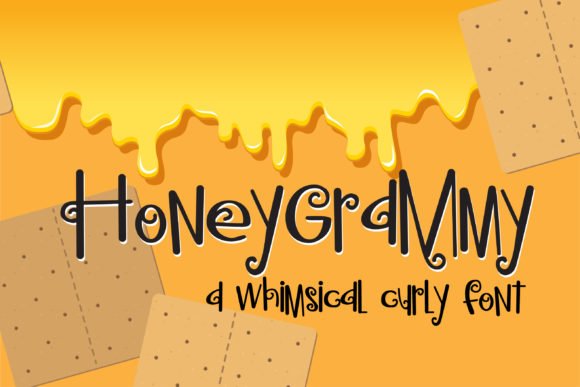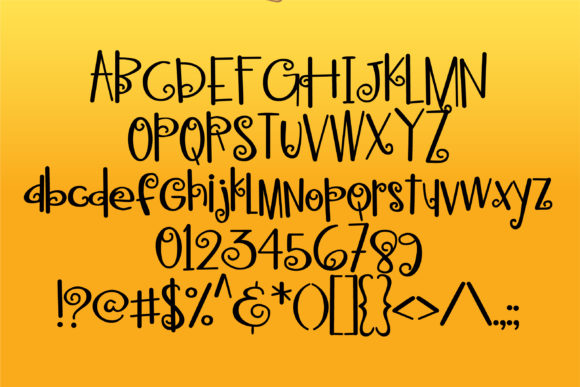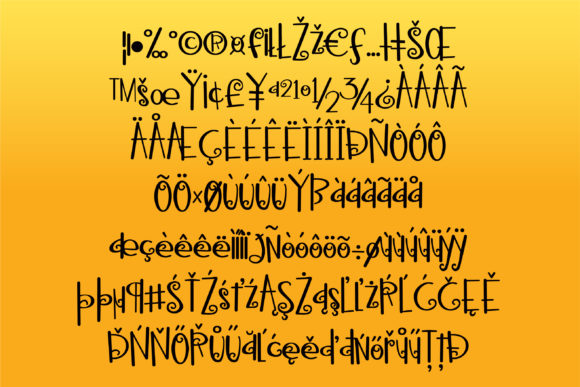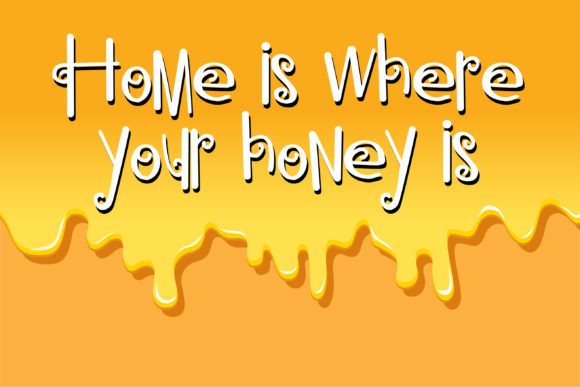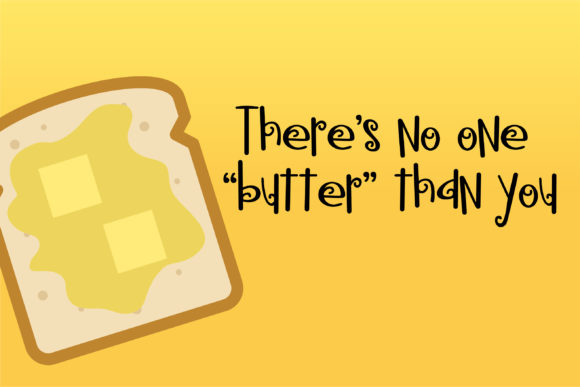
The Sweet Spot in Typography: Discovering Honeygrammy Font
Have you ever found yourself doodling in a notebook, letting your pen wander across the page in joyful abandon? For many creatives, those moments of unbridled expression are where the best ideas are born. And for designers, the right font can be the perfect catalyst to bring those ideas to life. That’s where Honeygrammy Font comes in – a charming sans serif typeface that adds a touch of whimsy to any project.
Designed to evoke the carefree spirit of childhood, Honeygrammy Font features playful curls throughout its letters, making it a standout choice for anyone looking to add a dash of personality to their designs. Whether you’re working on a branding project, a children’s book, or simply a social media graphic, this font is sure to bring a smile to your face and a touch of magic to your work.
Honeygrammy Font Key Features
- Unique Characteristics: This font features a unique, hand-drawn style with a mix of cursive and script elements, creating a warm and elegant aesthetic.
Honeygrammy Font Review
I’ve had the chance to play around with the Honeygrammy Font, and I must say it’s a sweet addition to any design project ✨. Here’s my honest review.
- The font’s playful and whimsical feel makes it perfect for projects that need a touch of personality and fun ✨.
- The Honeygrammy Font is highly customizable, with a wide range of styles and sizes to choose from ✨.
- It’s also super versatile and can be used for both digital and print projects, making it a great choice for designers who work across multiple mediums ✨.
- The font may not be the best choice for projects that require a professional or corporate tone, as it can come across as a bit too playful ⚠️.
- The font’s complexity can make it difficult to read in certain contexts, particularly at smaller sizes ⚠️.
Overall, I think the Honeygrammy Font is a great addition to any designer’s toolkit, as long as you’re aware of its limitations. With a little creativity and caution, it can add a lot of personality and flair to your designs ✨.
Honeygrammy Font is ideal for creative and playful designs, such as:
- Crafting and scrapbooking projects.
Remember to use the font in moderation to avoid overwhelming the design. Experiment with different font sizes and styles to achieve the desired effect.
What is the recommended font size for the Honeygrammy Font?
The recommended font size for the Honeygrammy Font is between 12pt and 24pt. However, the optimal font size may vary depending on the specific design application, intended audience, and viewing distance. Experiment with different font sizes to find the best result for your design.